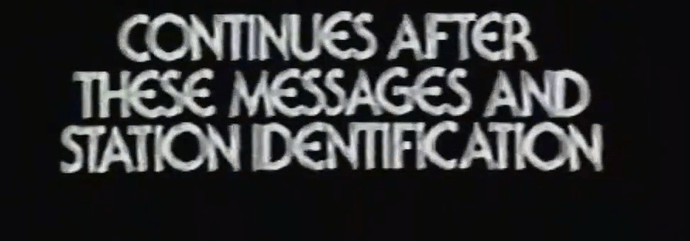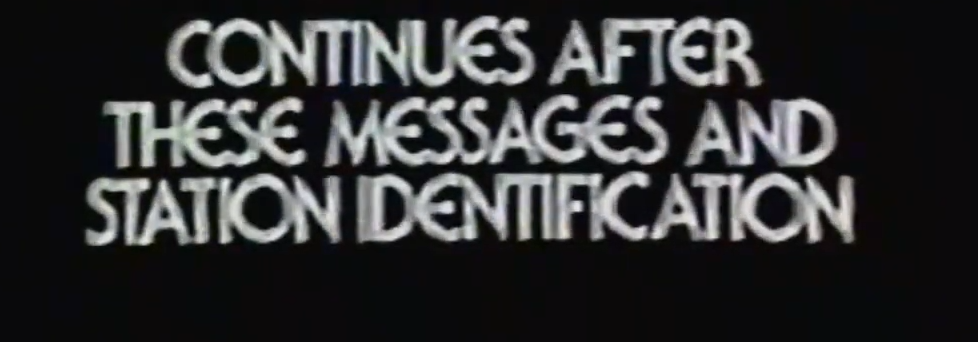
Thank you! I chucked it into the automated font finders but they didn’t give that result. It also must have been modified since the E is rounded in the image and the C looks cropped. I gotta figure out how to modify fonts… ![]()
The curved E was one of 11 alternates and ligatures that were not digitized.